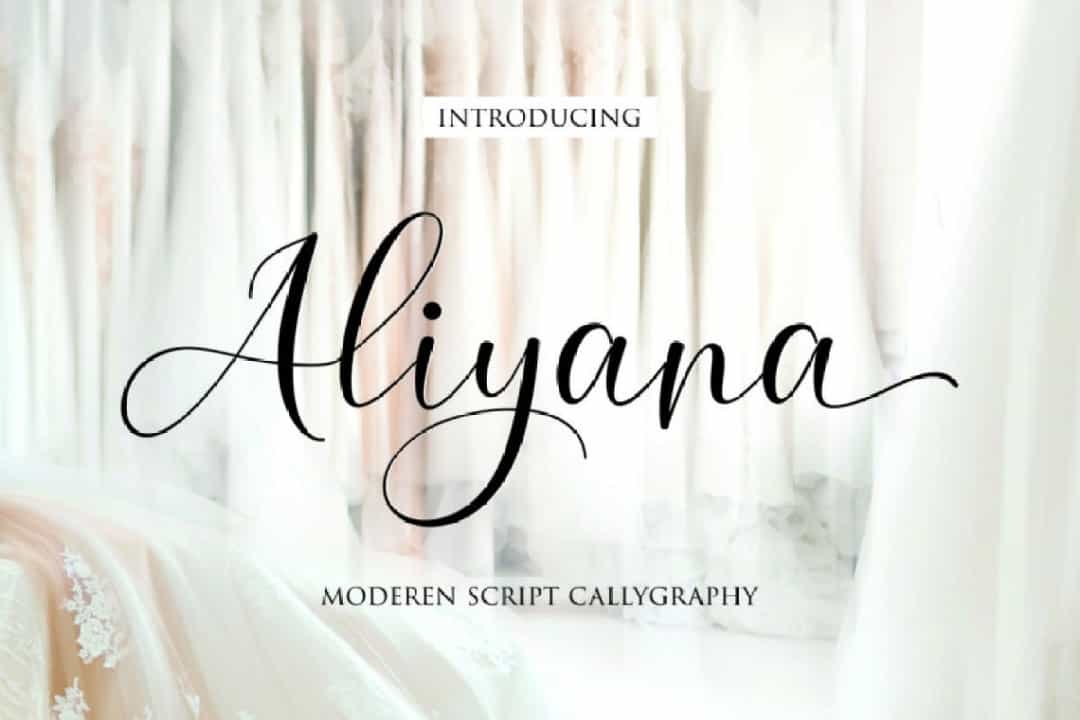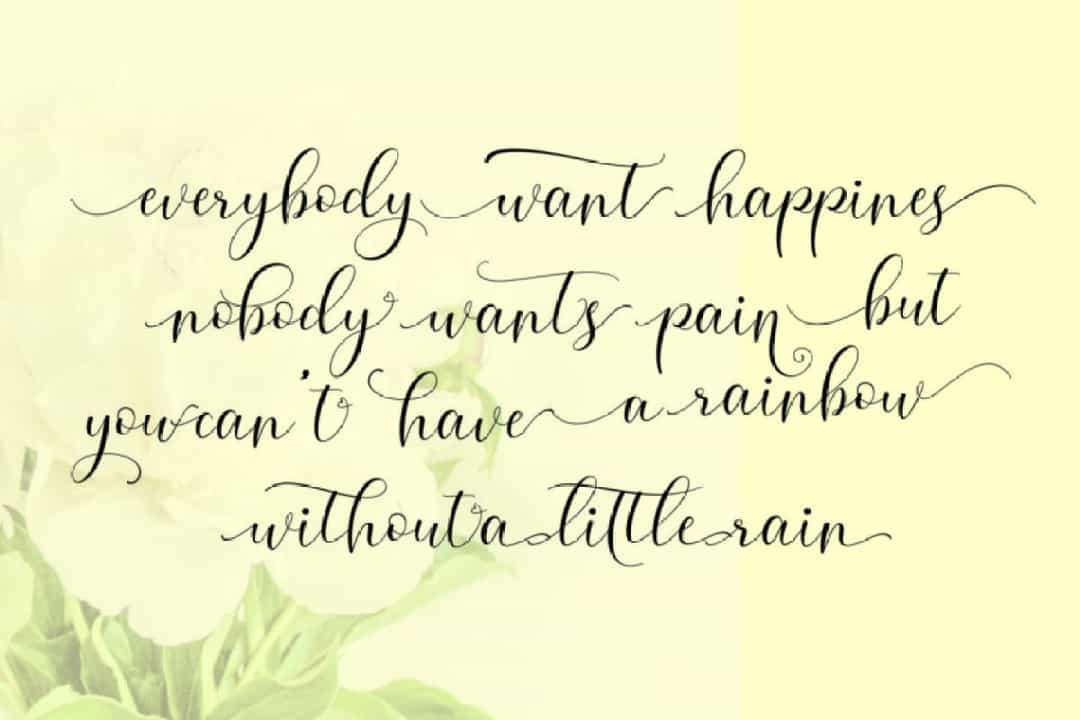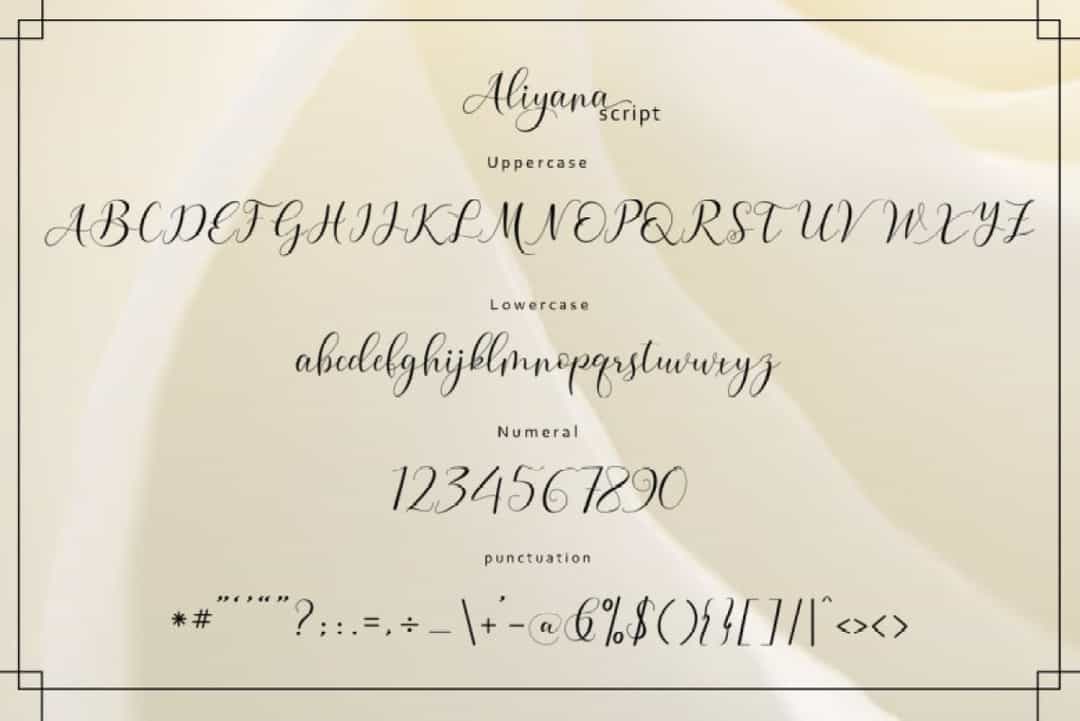
Aliyana is a fresh, stylish and elegant calligraphy font that can be used for any type of card be it a greeting card, business card or for any other branding material or posters or quotes or anything that has text on it!